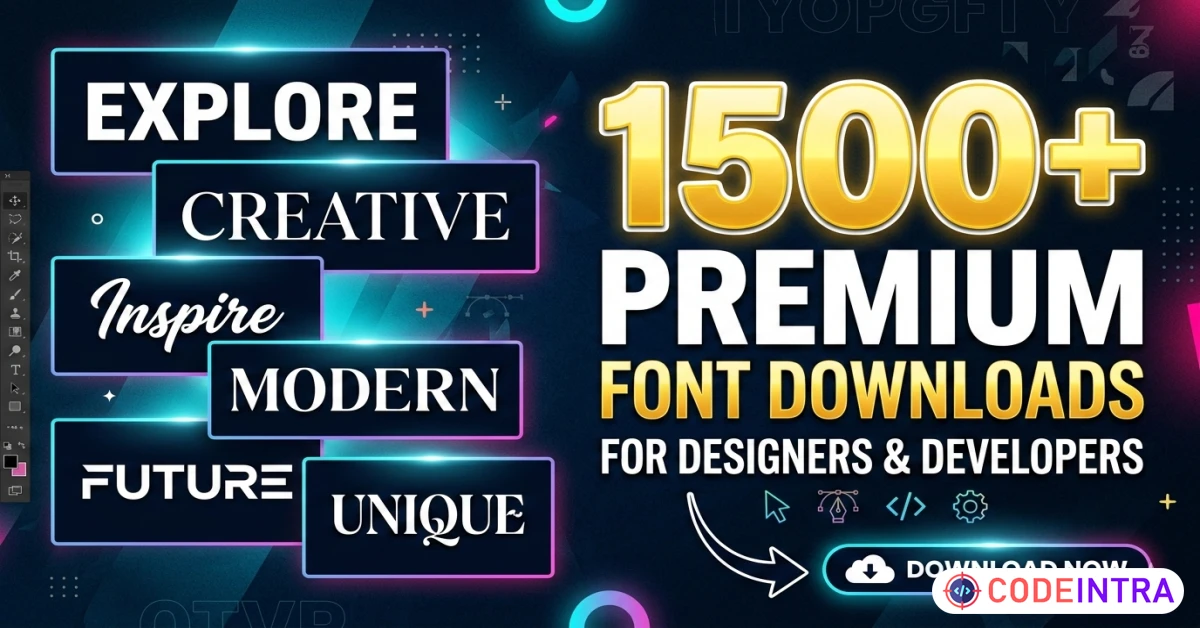
Typography is not just about letters — it’s about visual identity, brand perception, and conversion impact. The right font can increase trust, improve readability, and make a brand instantly recognizable. That’s why access to 1500+ premium font downloads is a powerful advantage for designers, developers, agencies, and entrepreneurs.
Whether you're building a website, designing a logo, creating marketing materials, or launching a SaaS product, having a professional typography bundle saves time and delivers better results.
This collection includes commercial-use fonts, modern typefaces, web-optimized fonts, branding fonts, UI fonts, display fonts, and much more — all curated for professional work.
Many beginners search for free font downloads, but professionals know the difference.
Free fonts often lack:
Premium fonts provide:
✔ <strong>Multiple weights and styles</strong>
✔ <strong>Better readability and balance</strong>
✔ <strong>Professional typography structure</strong>
When working on branding, UI design, or high-traffic websites, typography quality directly affects user trust and engagement.
This premium typography bundle covers nearly every design need:
Clean, minimal, and highly readable — perfect for:
Sans-serif fonts dominate UI/UX design because of their clarity and adaptability across devices.
Serif fonts bring sophistication and authority.
Best for:
Serif fonts increase perceived trust and credibility when used correctly.
Display fonts are bold, creative, and attention-grabbing.
Use them for:
A strong display font improves click-through rates and visual impact.
Script fonts add personality and emotion.
Perfect for:
Premium script fonts offer smooth curves, ligatures, and stylistic alternates.
Speed matters. Web fonts included in this collection are optimized for:
These fonts are ideal for SEO-focused websites where performance and readability are critical.
Typography influences how users feel about a brand within seconds.
A well-chosen premium font can:
Studies show that clean, professional fonts increase perceived trust. That’s why successful startups invest in high-quality typography from day one.
A logo is often just typography. Premium fonts allow designers to customize and modify typefaces while maintaining structural integrity.
UI fonts must be readable at small sizes and look sharp on large screens. This bundle includes fonts that scale beautifully across devices.
Product descriptions, pricing, and headings need clarity. Clean sans-serif fonts improve user experience and checkout completion rates.
Premium display fonts grab attention in ads, banners, and promotional materials.
Modern typography enhances visual storytelling and increases engagement.
The design world constantly evolves. Some of the most searched typography trends include:
This collection includes fonts aligned with current design trends, making it ideal for forward-thinking designers.
Here’s what makes this collection powerful:
💎 <strong>1500+ High-Quality Fonts</strong>
🎨 Multiple weights (Light, Regular, Bold, Black)
🔠 Multilingual character support
📥 Instant digital download
This makes it suitable for freelancers, agencies, content creators, and business owners.
Choosing the right font requires strategy.
Is your brand modern? Luxury? Creative? Corporate?
Your font must align with your brand voice.
Never sacrifice readability for style. Body text must be clear and comfortable to read.
A common rule:
Font pairing creates visual hierarchy and balance.
For commercial projects, always confirm licensing details.
Fonts should look good on:
Professional fonts maintain consistency across platforms.
Typography affects SEO indirectly.
Well-optimized web fonts:
Search engines prioritize user satisfaction — and readability plays a big role.
This typography bundle is ideal for:
If you work with visual communication, this collection will become one of your most valuable assets.
Installation is simple:
Professional fonts work smoothly in:
Instead of purchasing individual fonts repeatedly, a premium bundle gives:
For designers working on multiple projects, this is a productivity boost.
Typography is one of the most powerful design tools available. With access to 1500+ premium font downloads, you unlock endless creative possibilities.
From branding to web design, from marketing materials to mobile apps, professional fonts enhance visual quality and user experience.
Start building stronger visual identities today with a complete collection of commercial-use fonts designed for professionals.